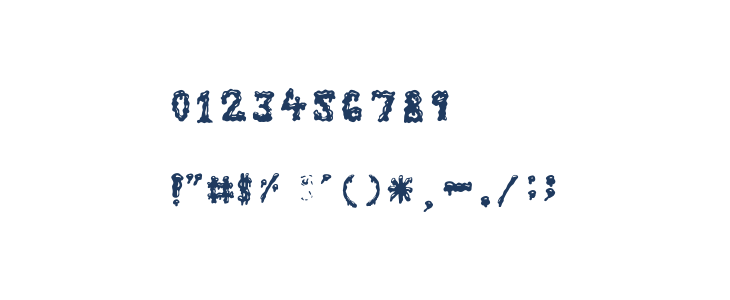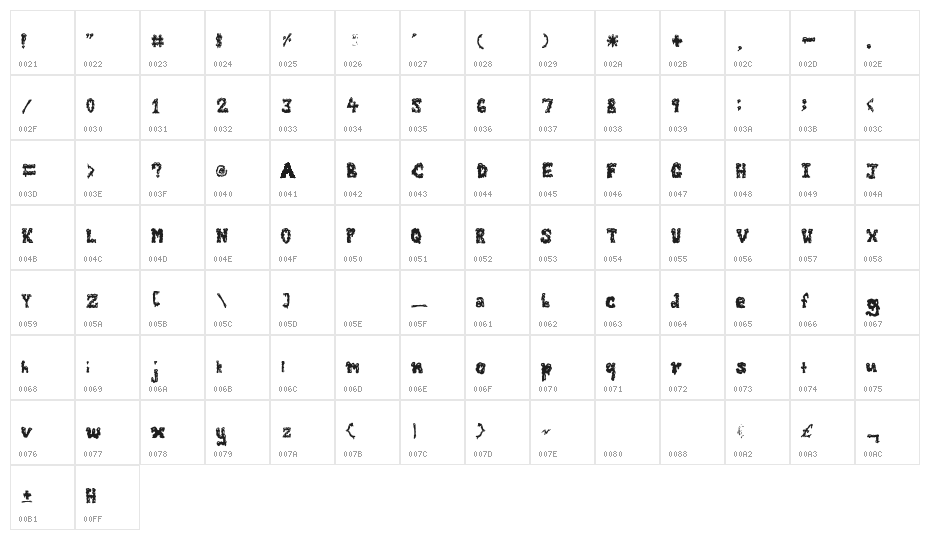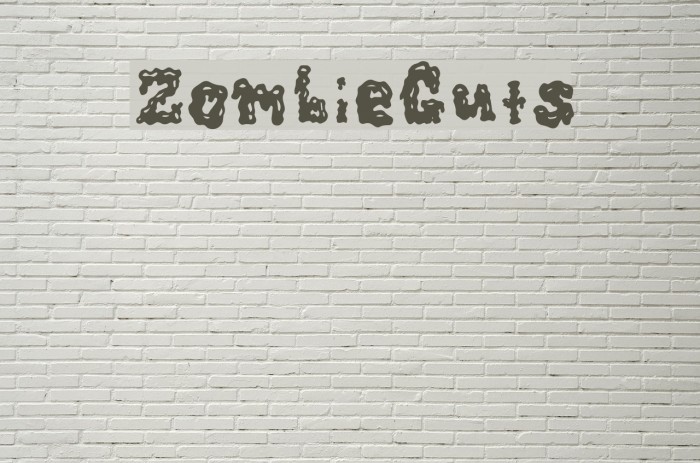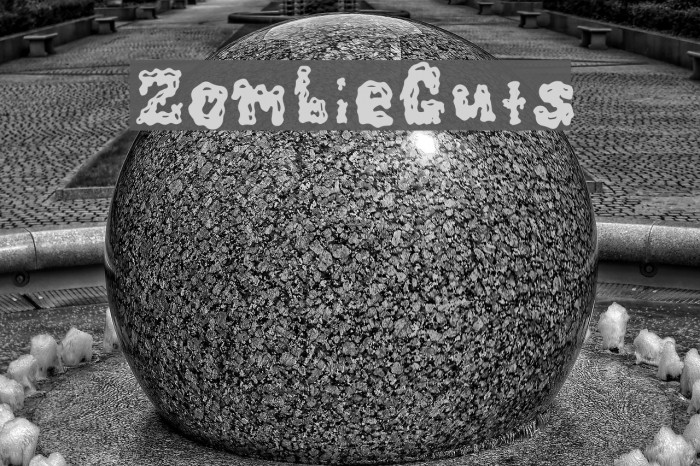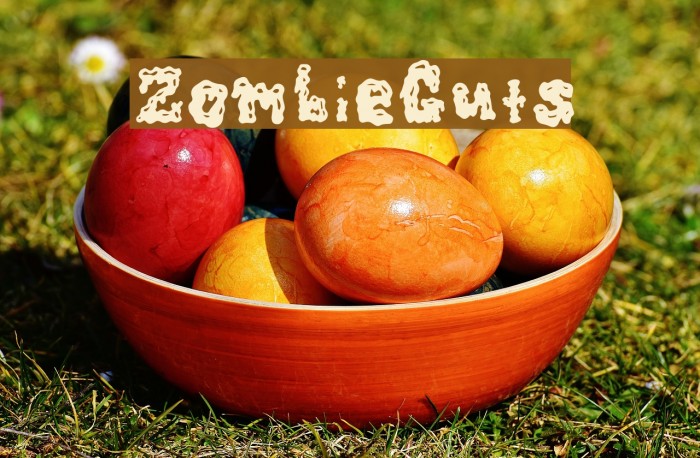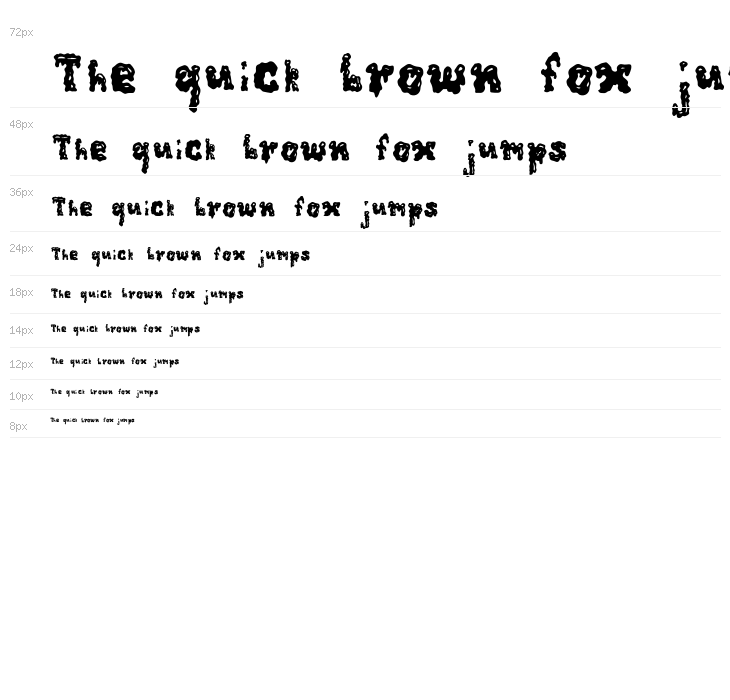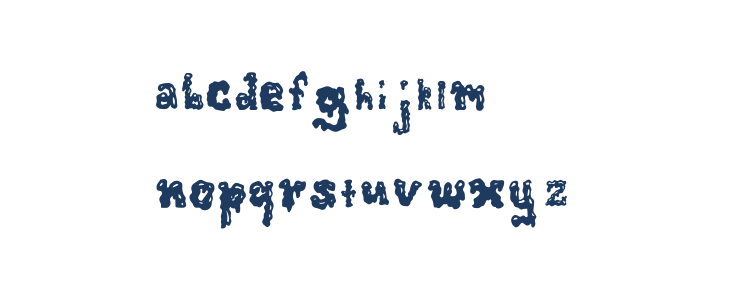
ZombieGuts Font
ZombieGuts Description
This font features a unique and playful design, characterized by its irregular, organic shapes that resemble dripping or melting forms. The letters have a bold and chunky appearance, with uneven edges and a textured look that adds a sense of movement and fluidity. The style is reminiscent of horror or Halloween themes, making it ideal for projects that require a spooky or eerie aesthetic. The font includes a full set of uppercase and lowercase letters, numbers, and a variety of special characters, all maintaining the same distinctive style.
| Proposed Projects | Ideal for Halloween invitations, horror movie posters, themed party decorations, and spooky merchandise designs. |